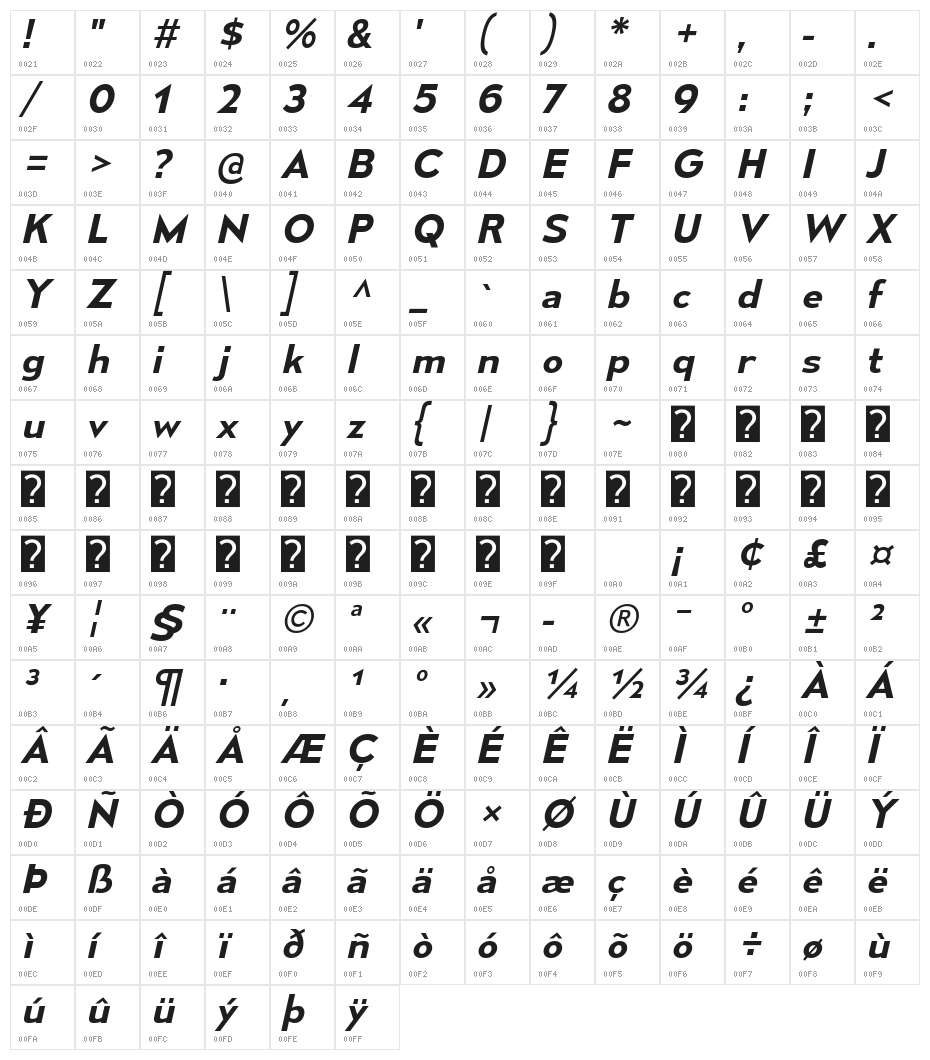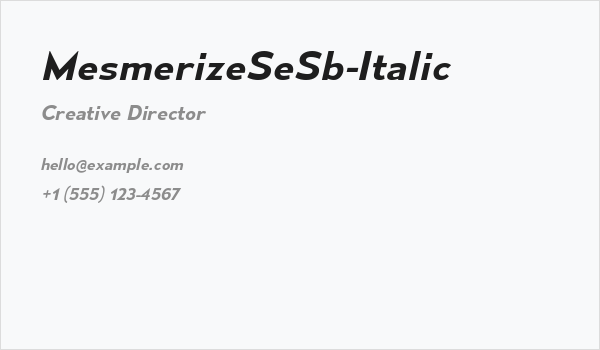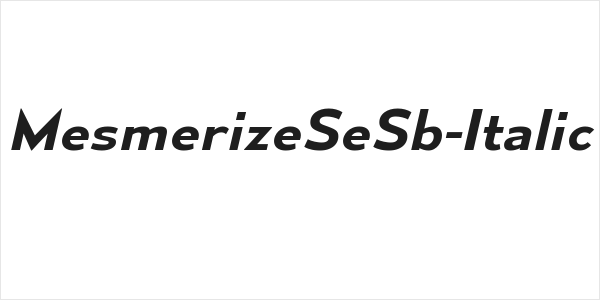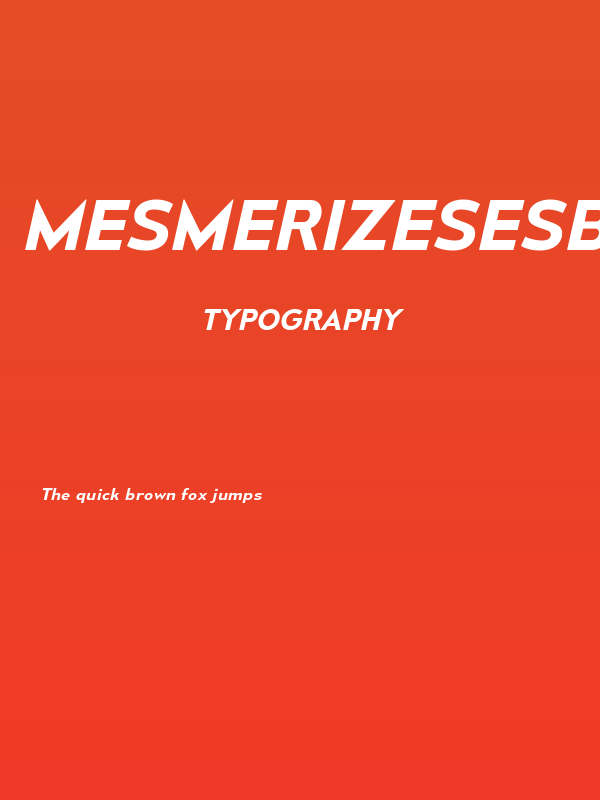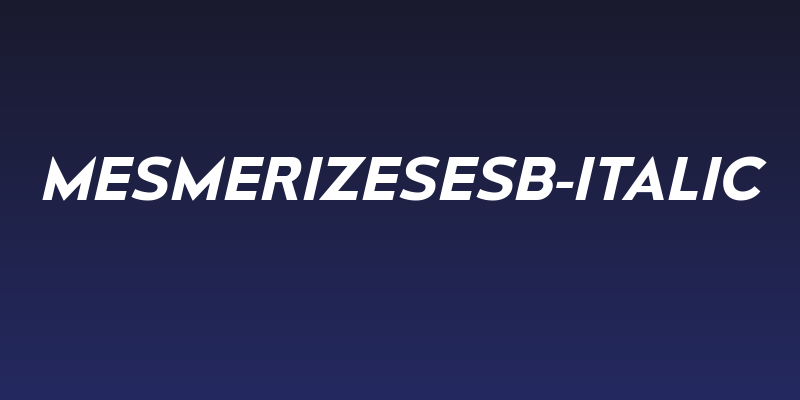
MesmerizeSeSb-Italic Font
MesmerizeSeSb-Italic Description
This font features a sleek, italicized style with a modern and dynamic appearance. The characters are slightly slanted, giving a sense of motion and energy. The uppercase and lowercase letters maintain a consistent design, with smooth curves and sharp edges that enhance readability. The numerals are clear and distinct, matching the overall aesthetic. Special characters are well-integrated, maintaining the font's cohesive look. This typeface is versatile, suitable for various applications where a contemporary and stylish impression is desired.
| Proposed Projects | Ideal for branding, advertising, and editorial design projects that require a modern and energetic feel. |